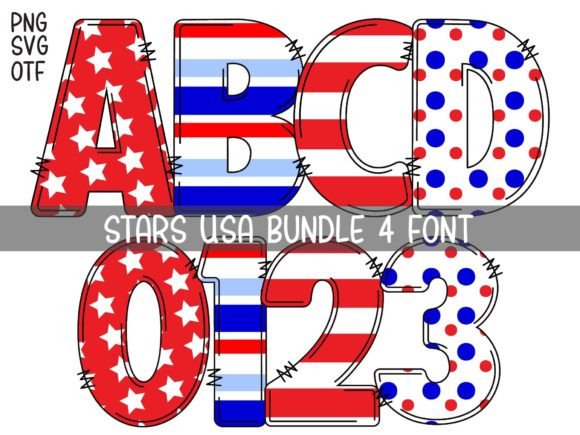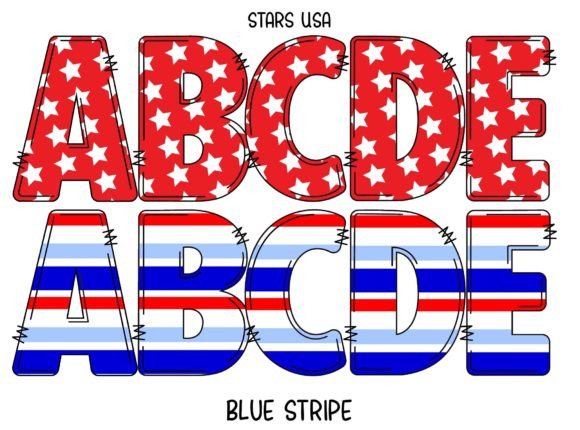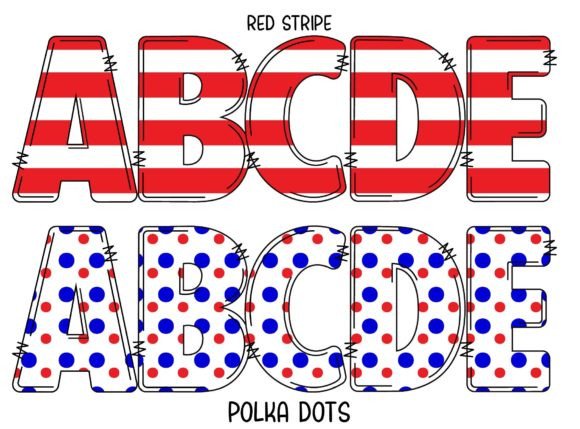
Stars Usa Font
Stars USA is a cool and uniquely crafted patriotic color font. Its fun and playful characters make it the perfect font for stickers, mugs, t-shirts, ornaments, independence day event cards, event invitations, and many more!